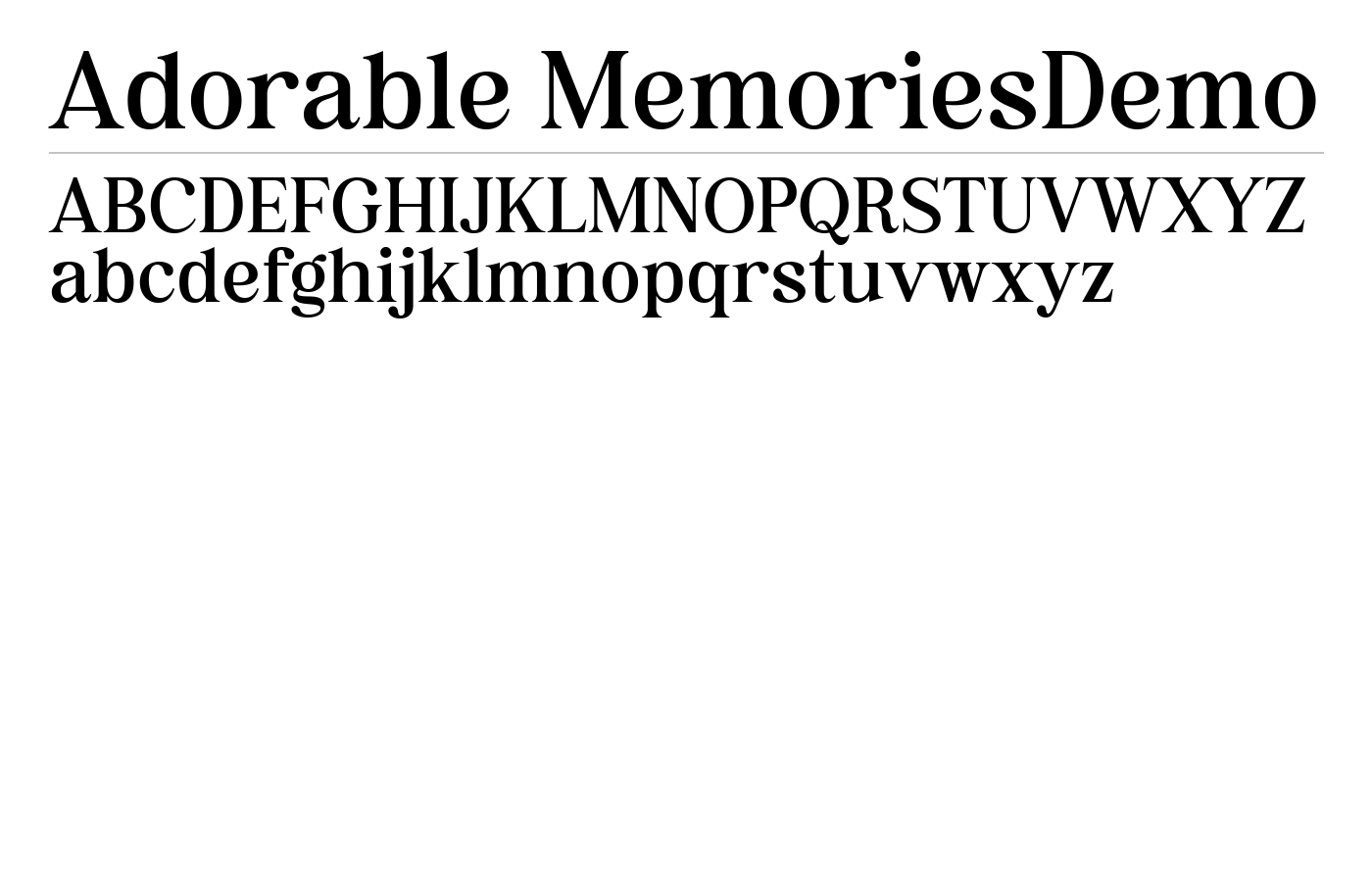
Adorable MemoriesDemo is a refined serif font with a classic, elegant style that balances strong contrasts between thick and thin strokes. Its slightly condensed letterforms and bracketed serifs give it a timeless yet approachable feel, making it ideal for sophisticated branding, editorial design, and formal headlines. This font works well where a blend of tradition and modern clarity is desired, such as luxury packaging or upscale print media.
Adorable MemoriesDemo Font
About Adorable MemoriesDemo Font